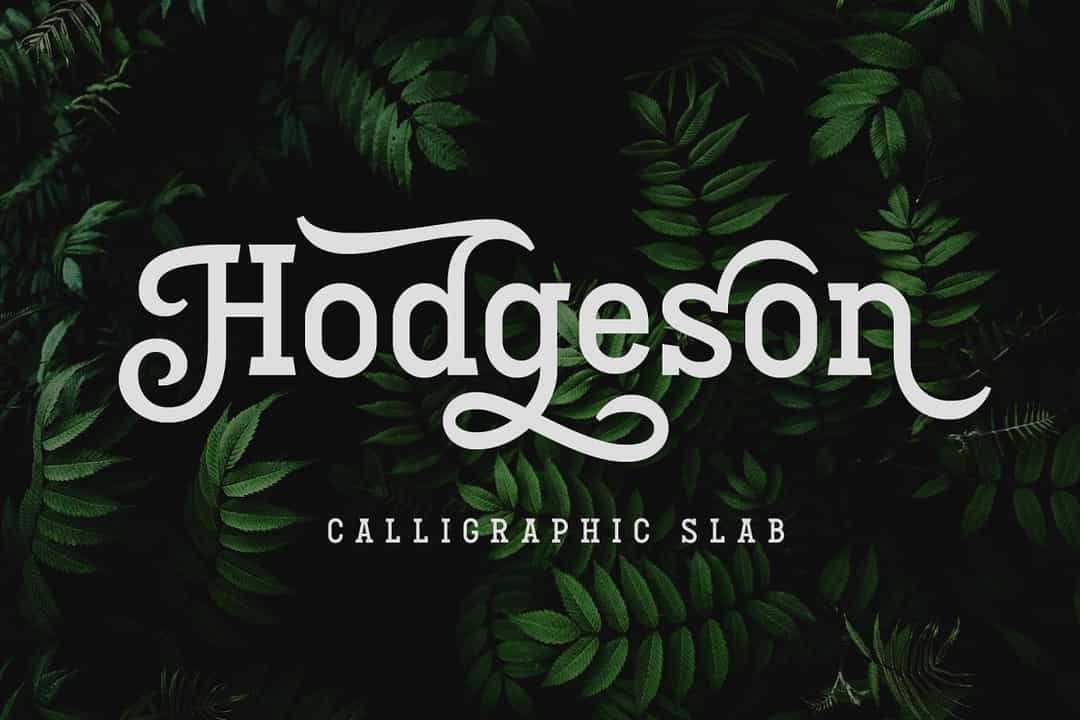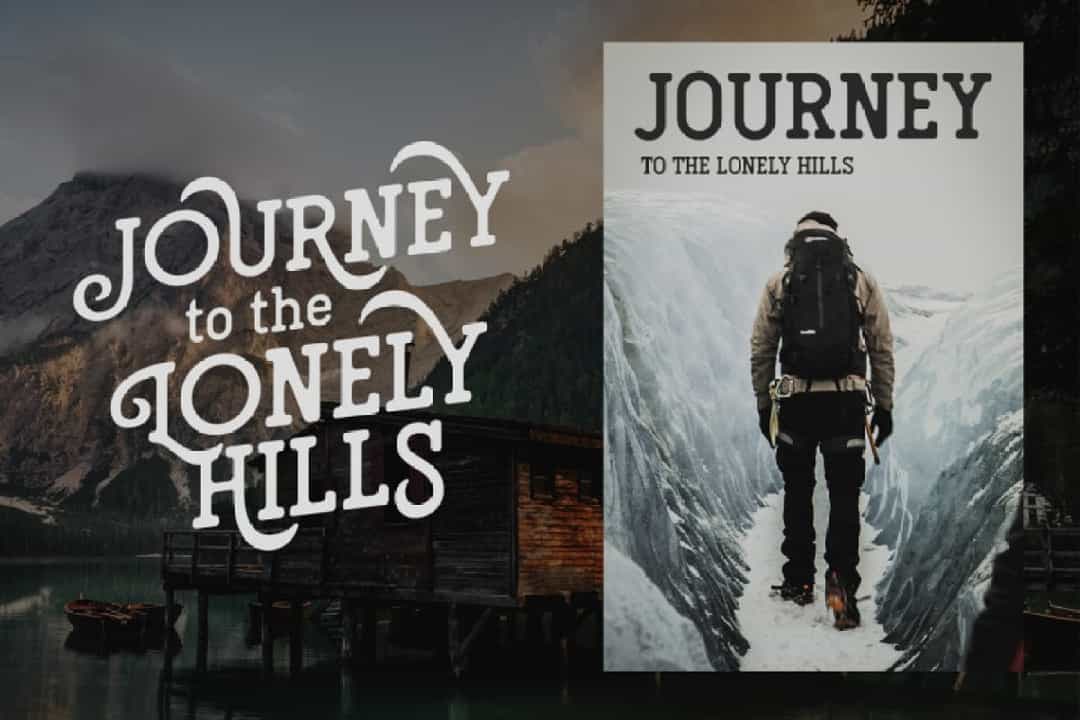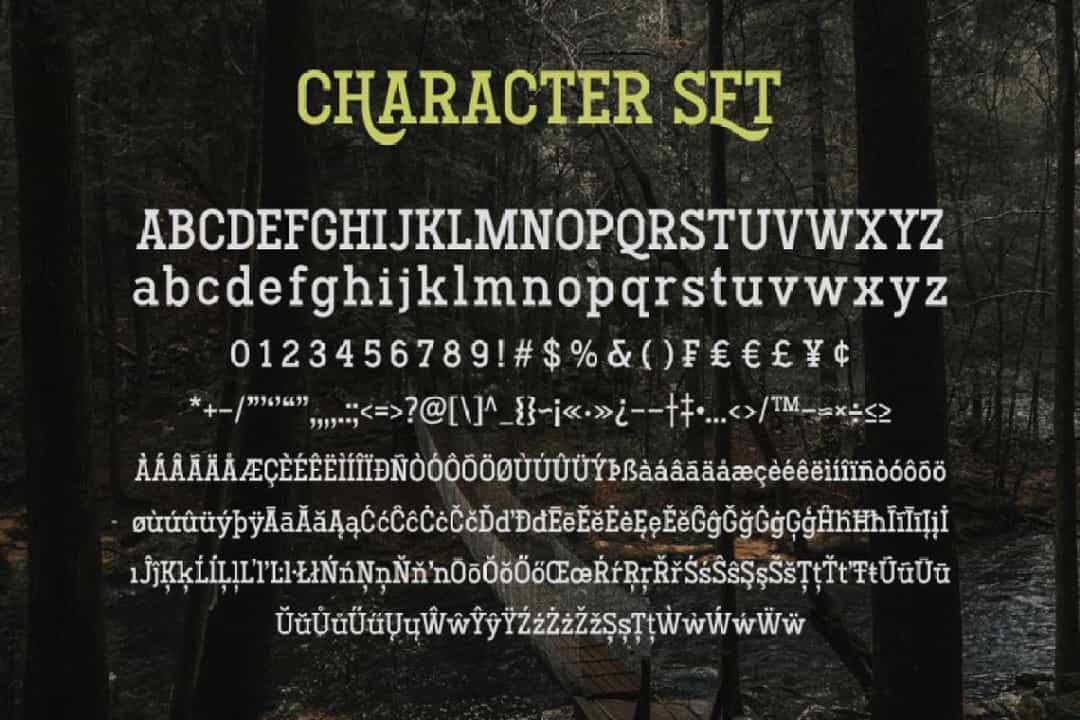
Discover Hodgeson Calligraphy Slab Serif Font, part of the Serif Slab Serif Basic collection—a versatile and unique font perfect for adding a personal touch to your projects. Download it for free and enjoy crafting designs with style, from invitations to social media posts. This font is available exclusively for personal use, giving you the freedom to create without limits. Unlock your creativity with Hodgeson Calligraphy Slab Serif Font today!
Hodgeson is a writing font with the slab serif that is created from the letters with some calligraphic touch and Egyptian style. It has four styles which you may apply singularly or in any combination as per the design style you require for any given work. Equipped with Open Type that offers even more flexibility, you are able to choose from the following font types; Normal, Italic Shadow Round.